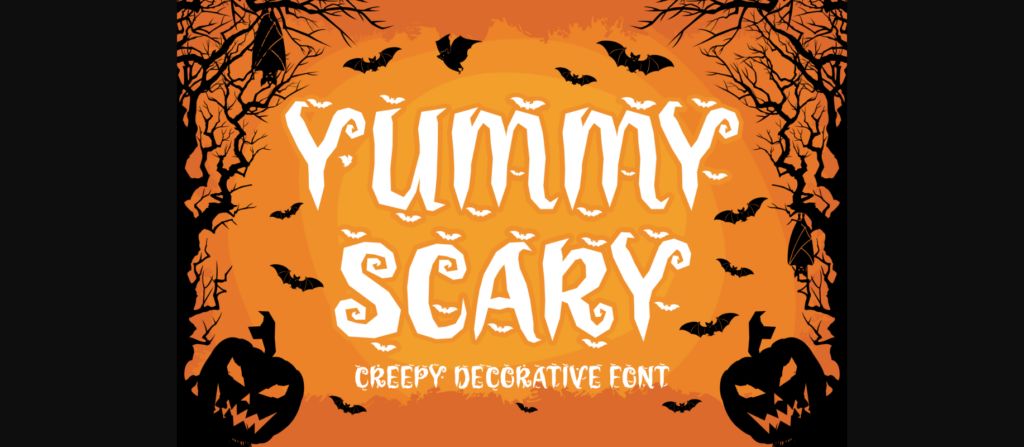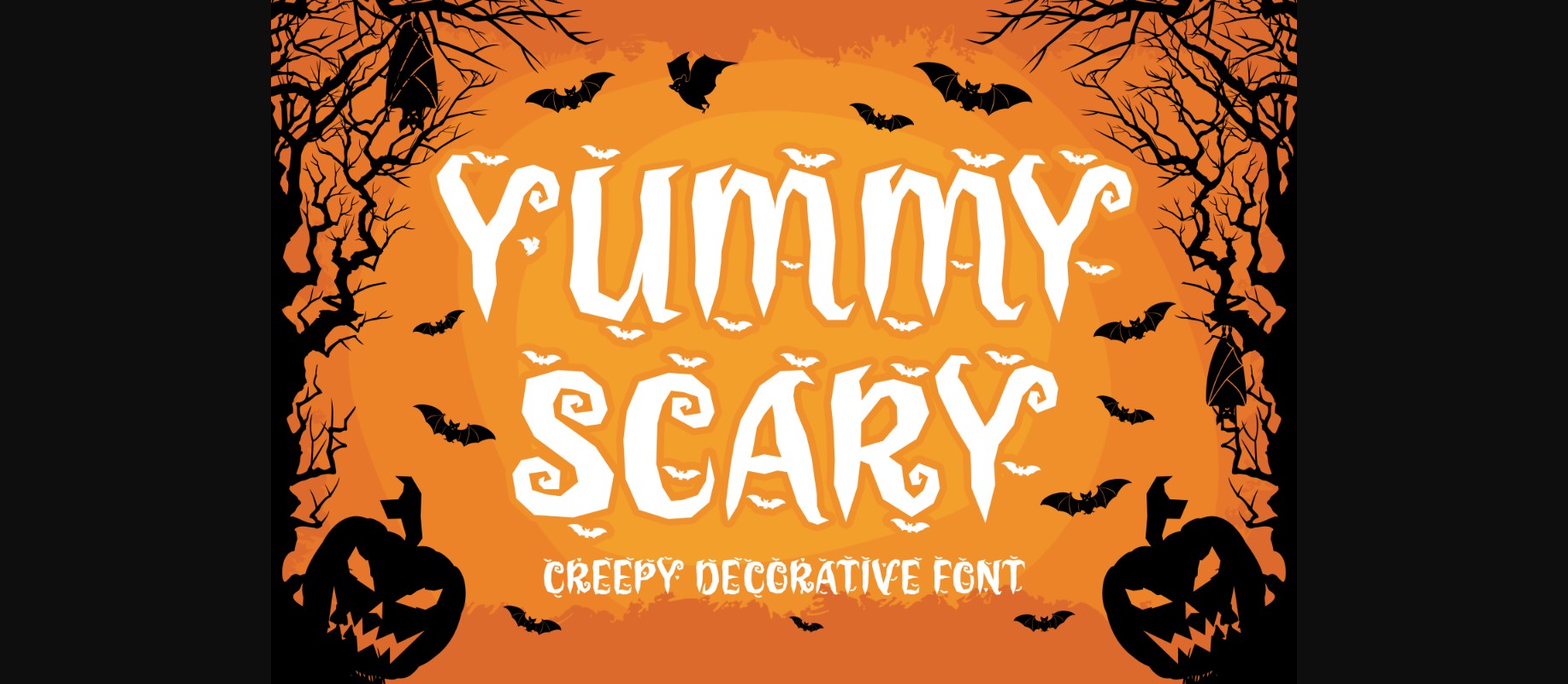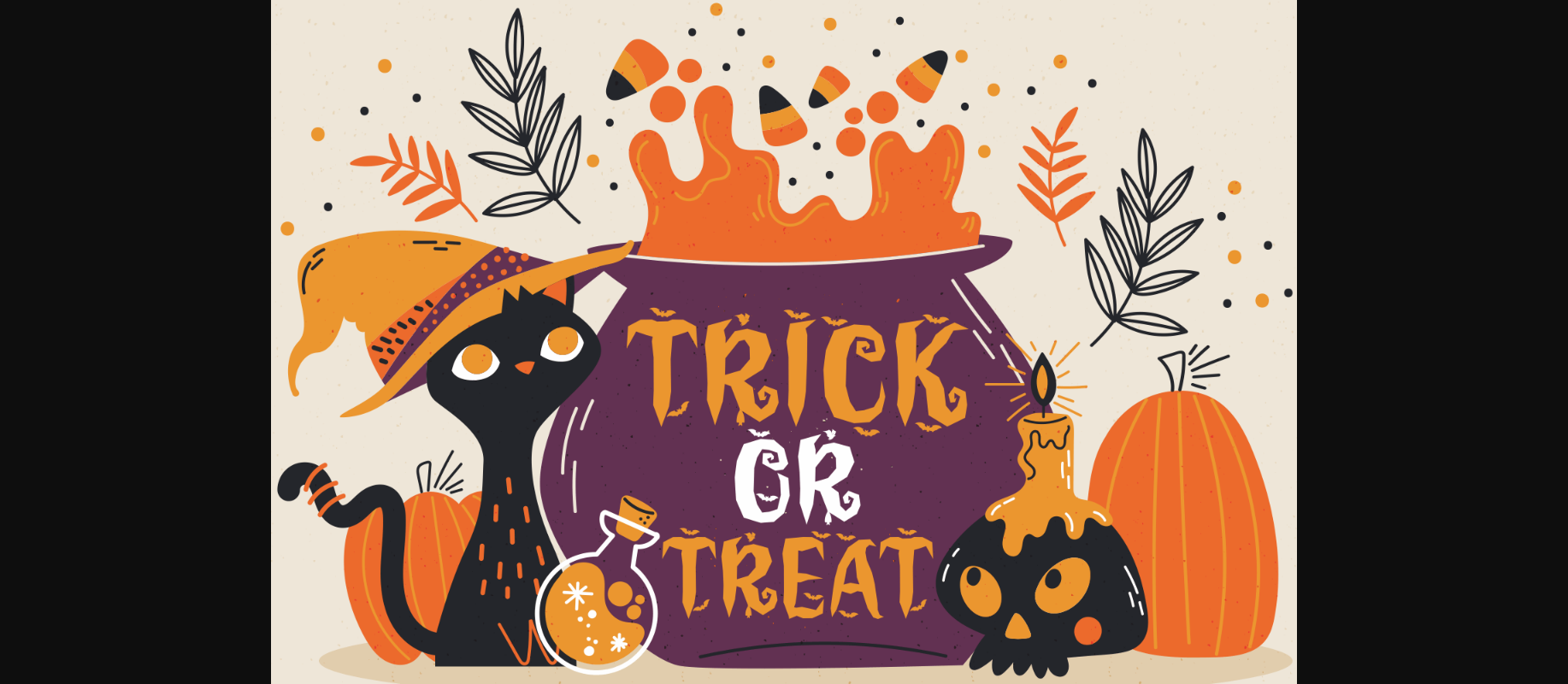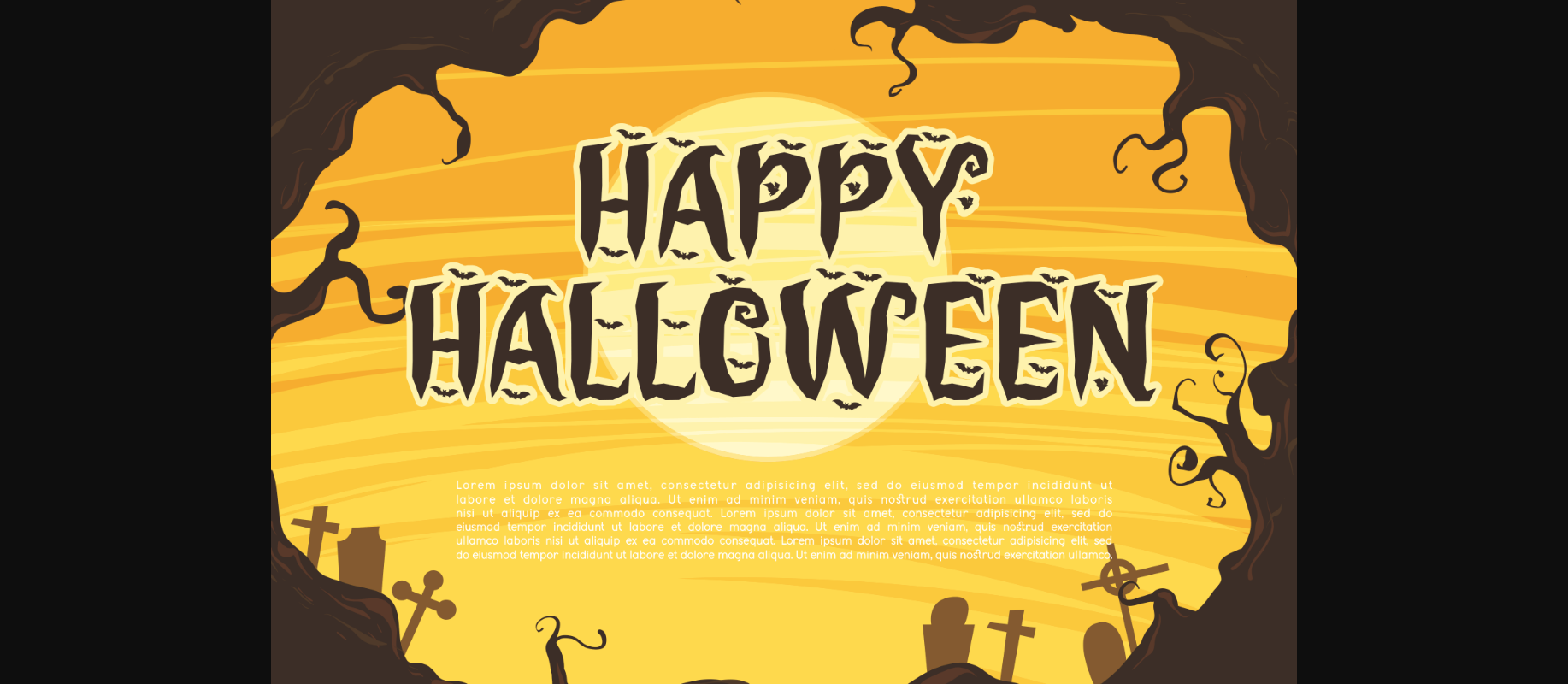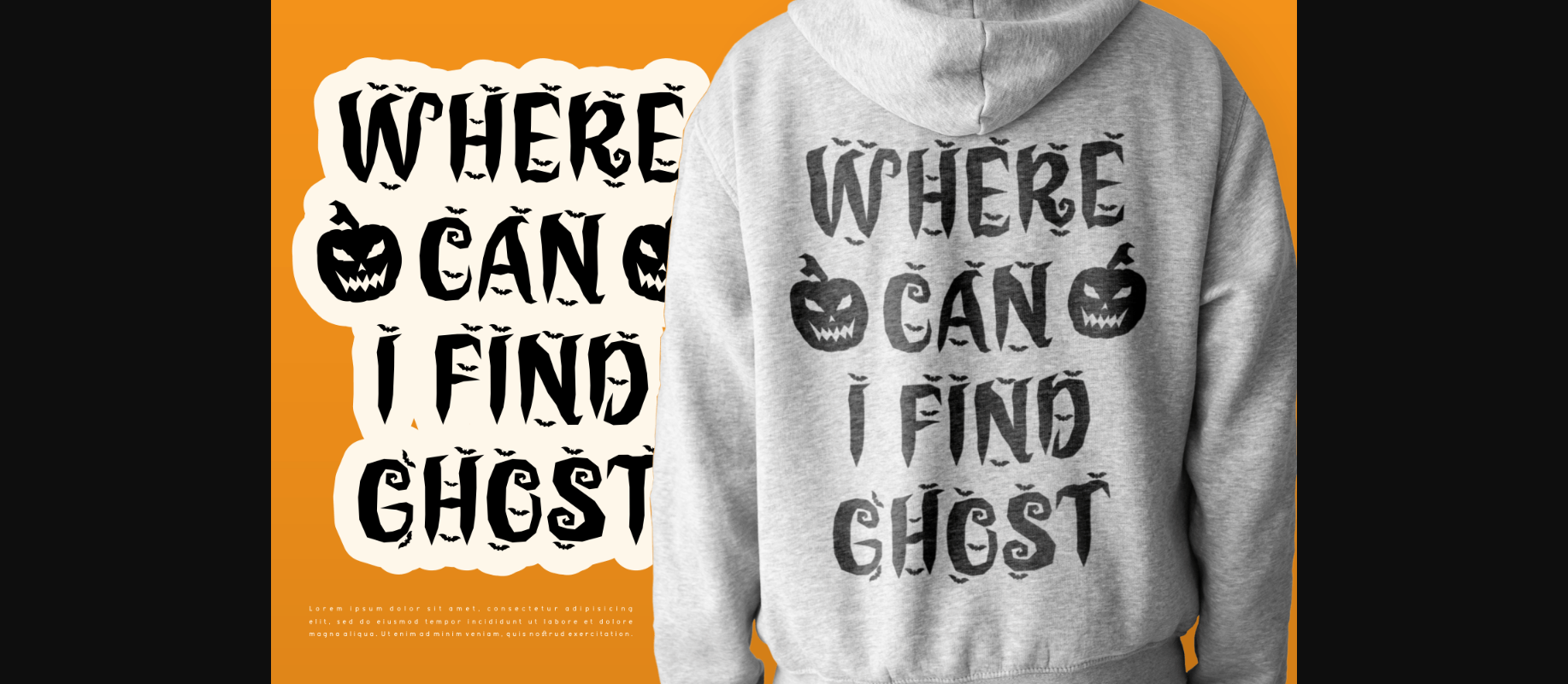
About Yummy Scary Font
Yummy Scary is a cute and spooky decorative font. Celebrate Halloween in style with these fun characters that will look amazing on t-shirts, home decorations, posters, invitations, cards, and many more!
This font is PUA encoded, so you can easily access all the Halloween glyphs!